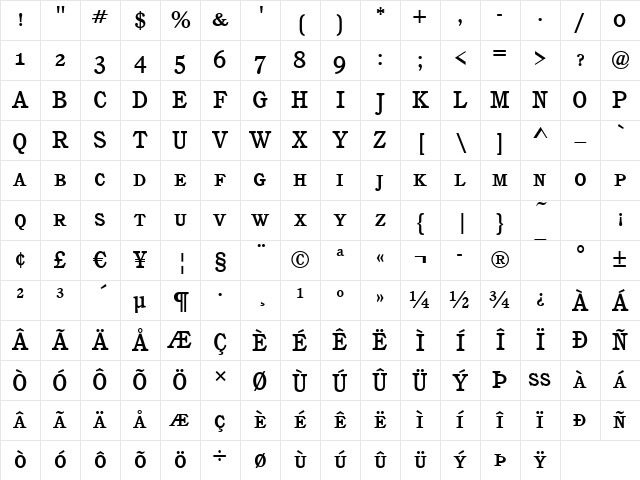
Calgary-Caps-Medium Regular
Design Context for Calgary-Caps-Medium
Calgary-Caps-Medium is a composed and adaptable typeface that performs quietly and consistently across a wide range of design contexts.
Pro Tip: Use Calgary-Caps-Medium in both headline and body roles to test its range before committing to a single application.